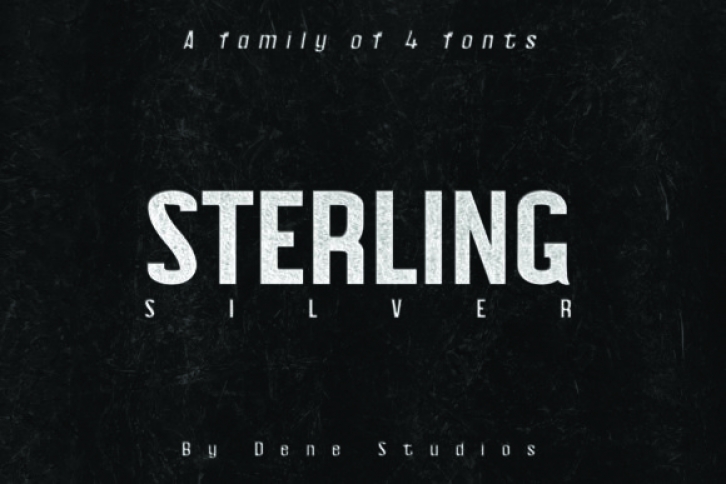
Sterling is a modern sans serif type that has plenty of personality and adds a lot of charm to any project. It comes in regular, italics, bold and bold italics.